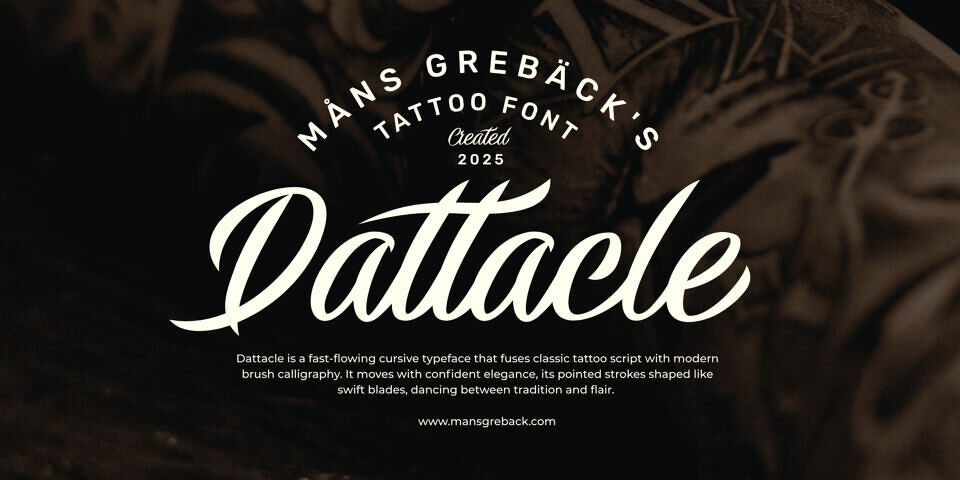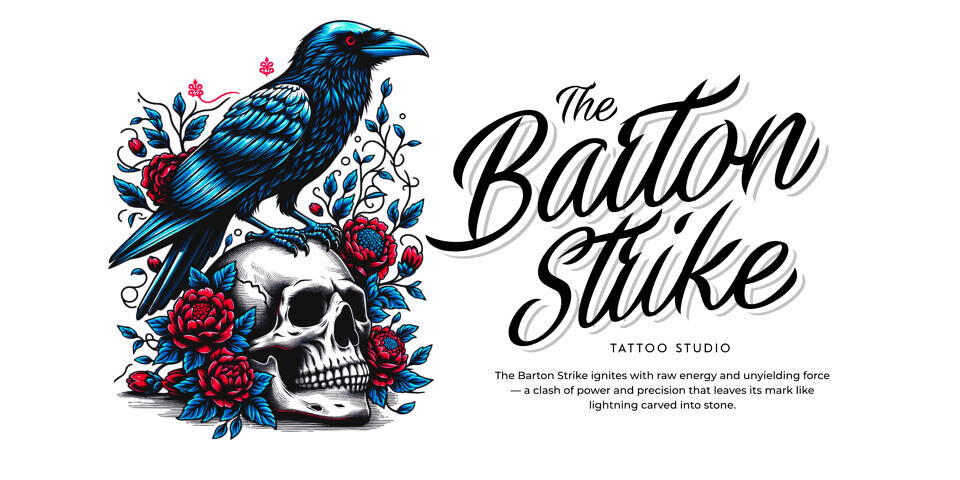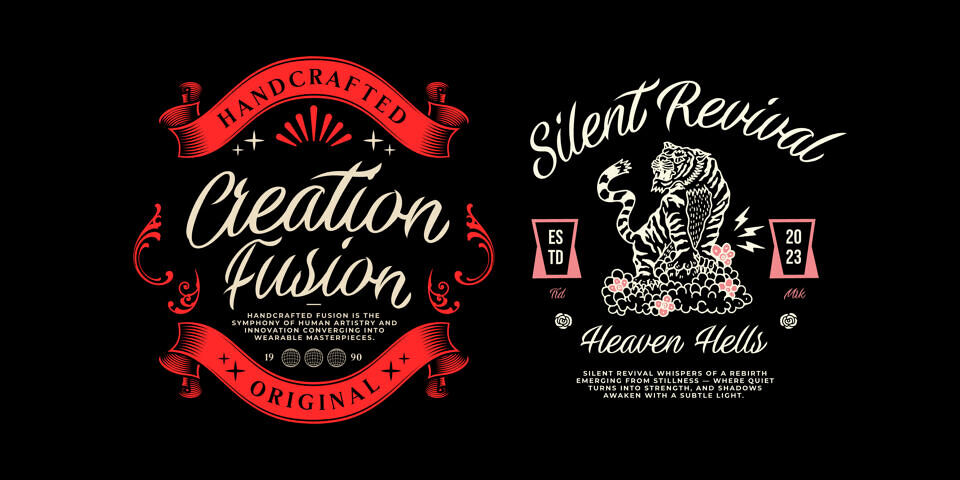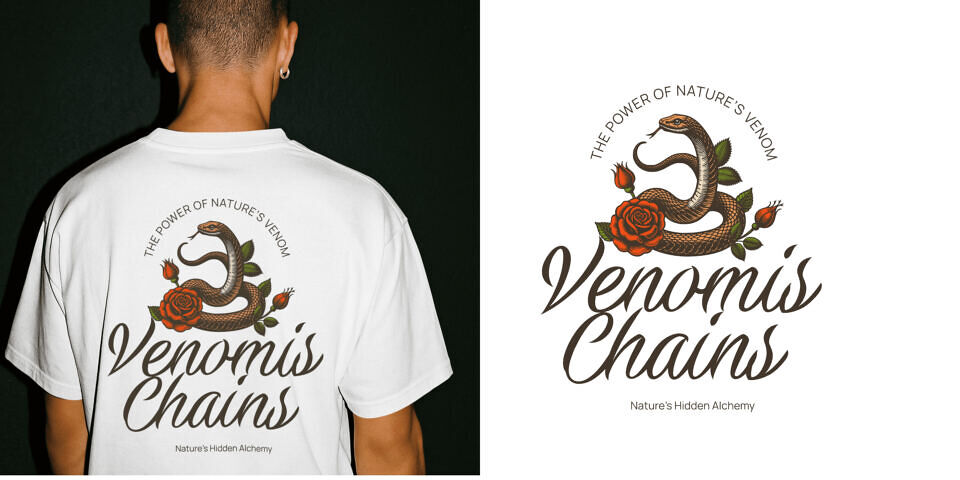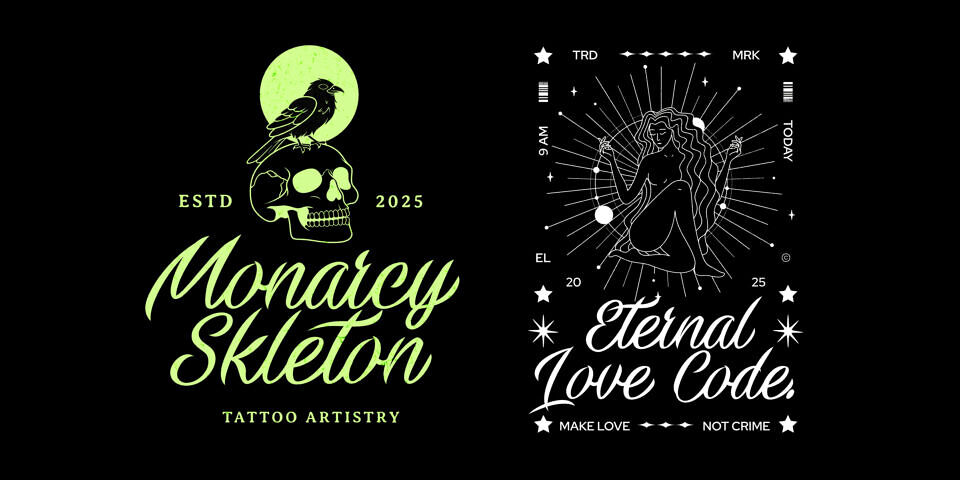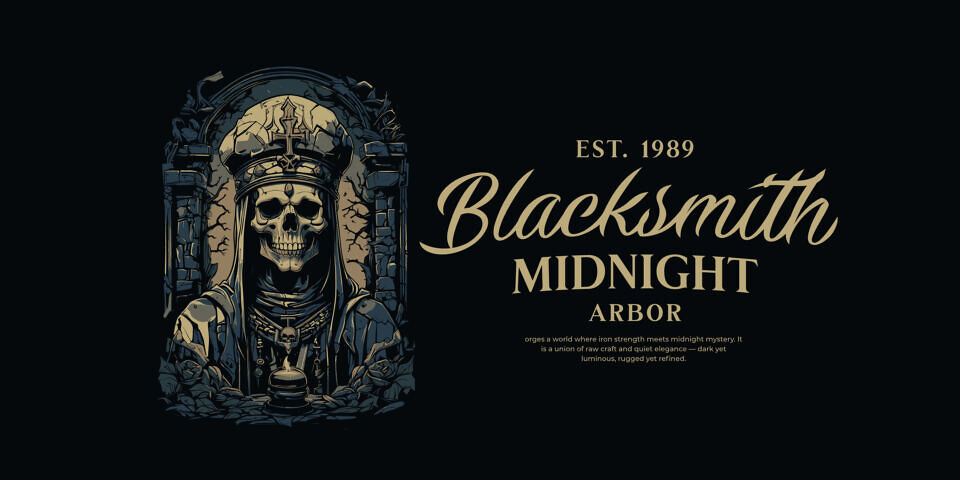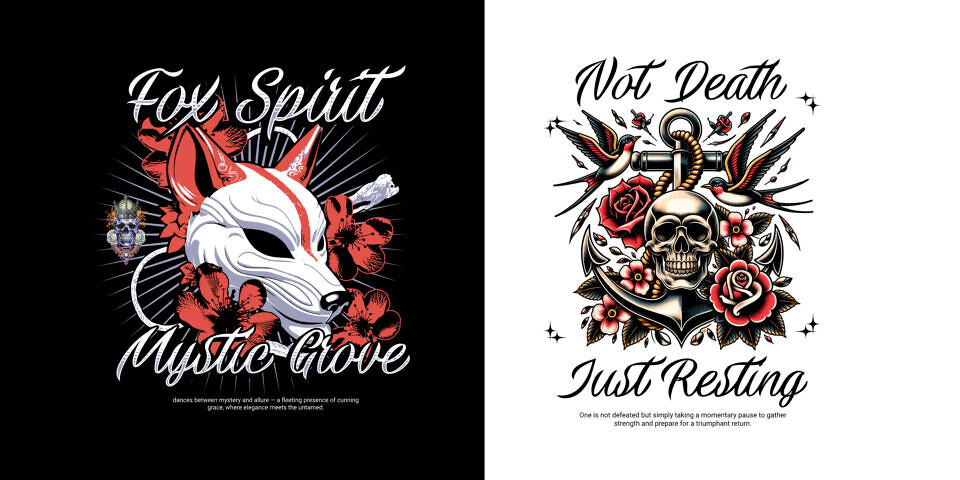
Dattacle Font
Dattacle is a fast-flowing cursive typeface that fuses classic tattoo script with modern brush calligraphy. It moves with confident elegance, its pointed strokes shaped like swift blades, dancing between tradition and flair.
The letterforms lean forward with a determined rhythm, while tense curves and sharp edges combine to create a look that’s both rebellious and refined. Each character is drawn with motion in mind, as if written mid-air with a loaded brush, creating a visual tempo that’s bold yet balanced. The contrasting weights across the family—from Thin to Black—allow expressive layering and impactful hierarchy.